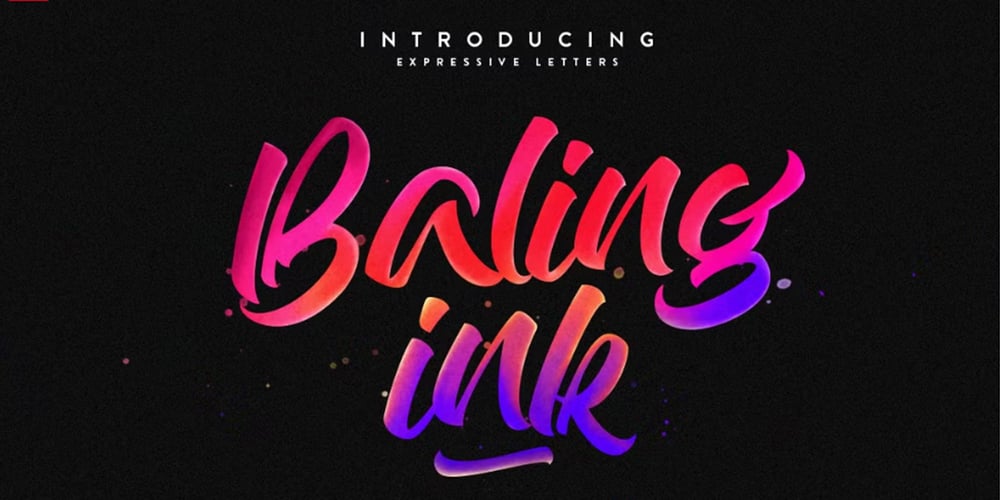
Baling Ink Font Family was designed by Rizky Setyaludin and published by Maghrib Type. Baling Ink contains 1 styles and family package options. Baling Ink type is expressive brush dan hand drawn typeface designed to help you create the look of stunning custom hand-lettering.Baling Ink The typeface offers numerous combination possibilities between the basic glyph set and stylistic sets.The stylistic sets are alternate alphabets that you can access by using OpenType.